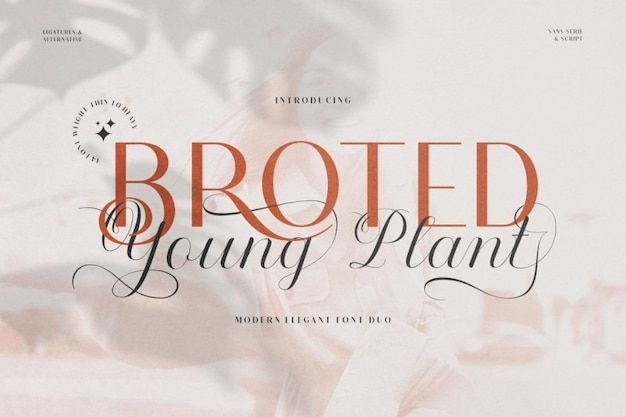
Broted young plant Font
Broted Young Plant is a modern typeface that you can use to add an elegant touch to your creations. Download it now and start using it to invent new posters, cards, flyers and much more.